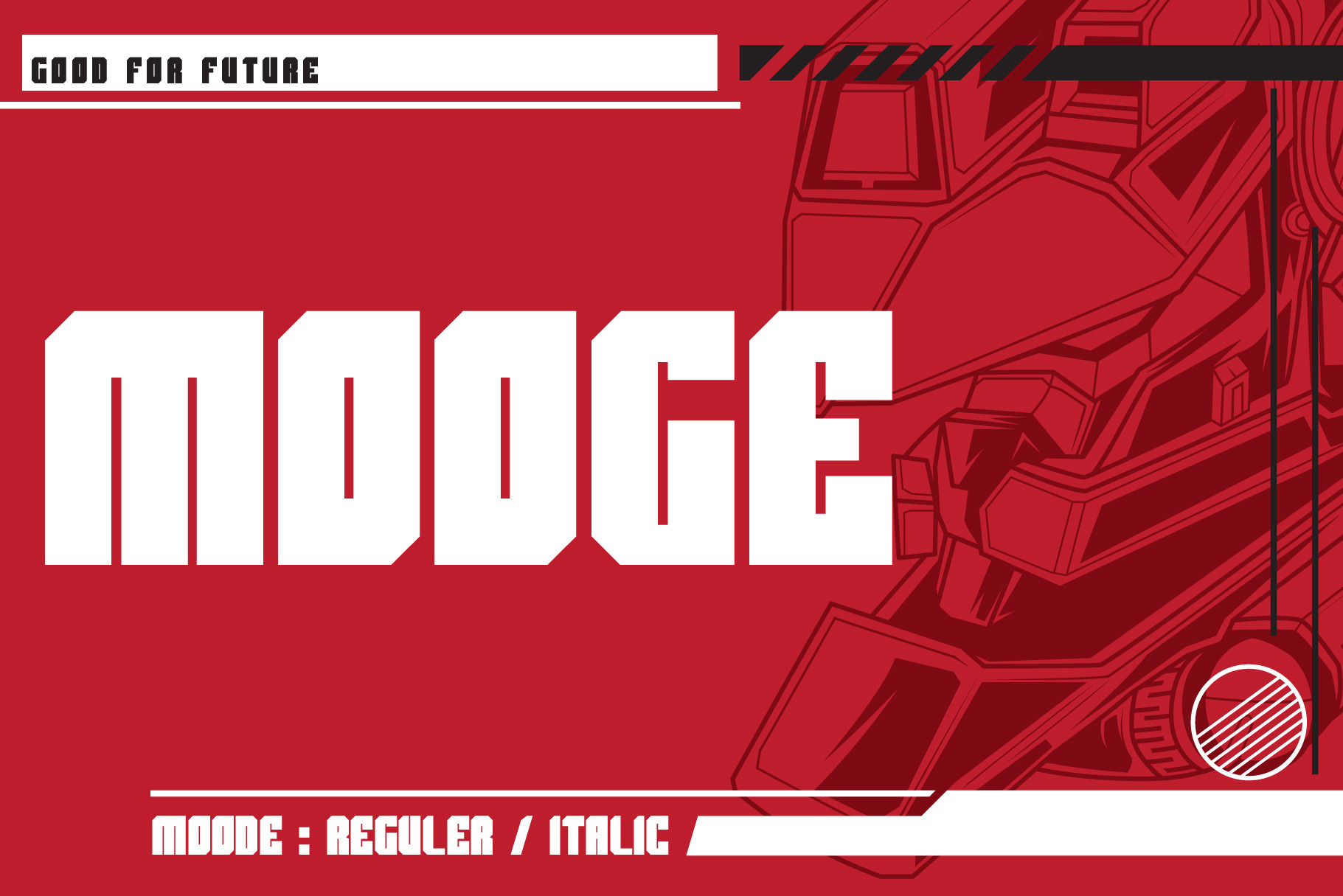
MOOGE (futuristic font)
Mooge fonts were created because they were inspired by Mecha illustrations. This font shows a strong, futuristic, and flexible impression. also available iltalic type